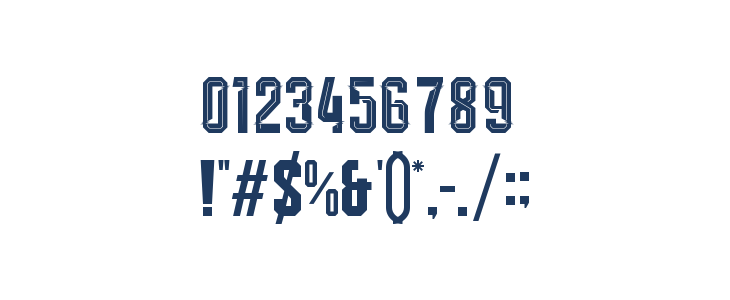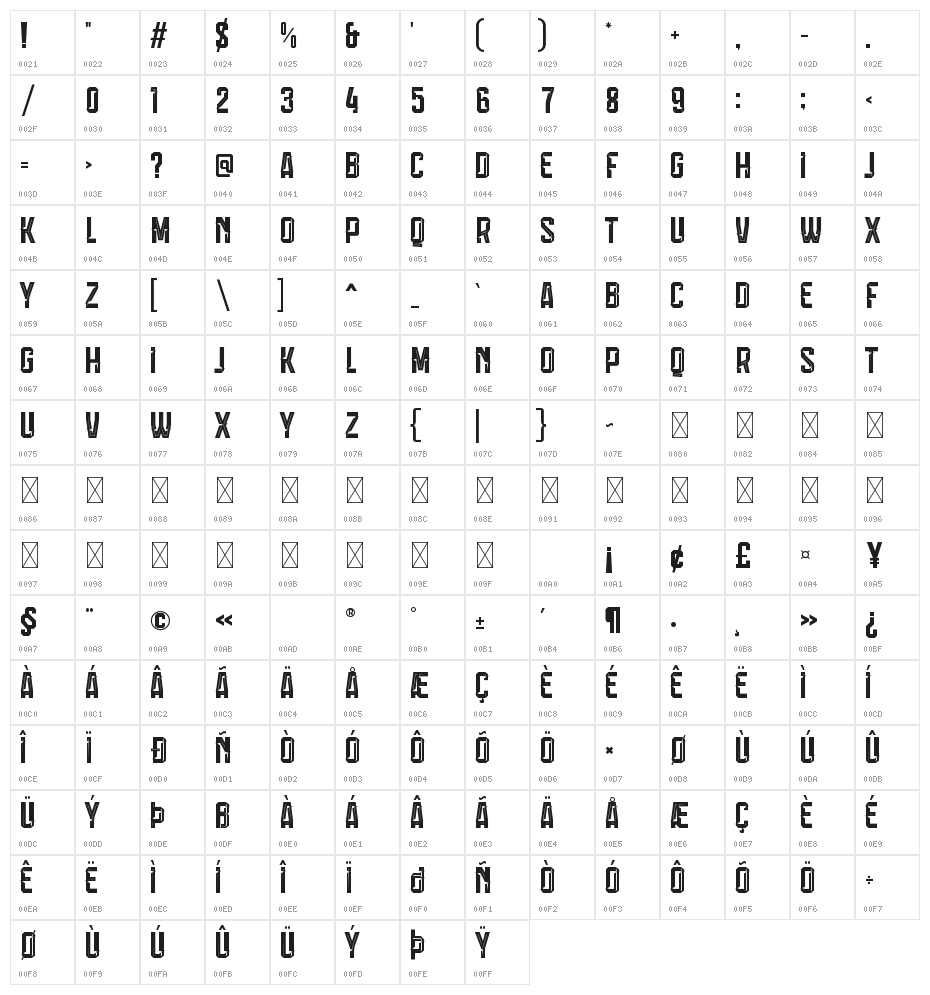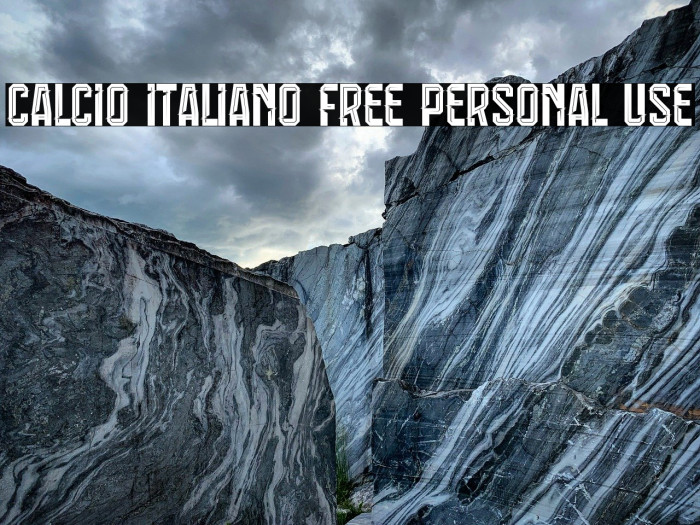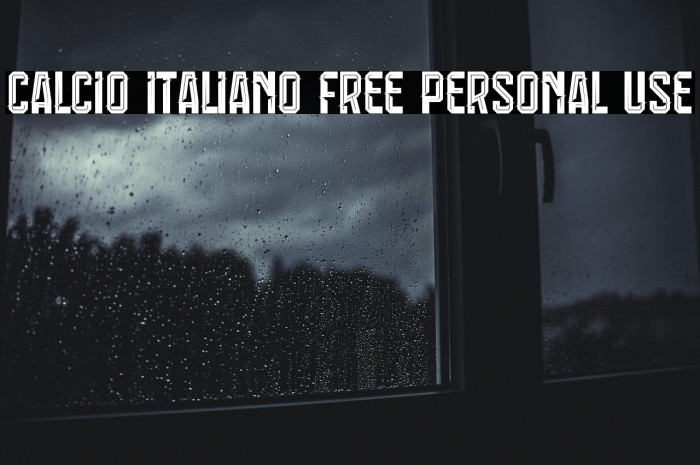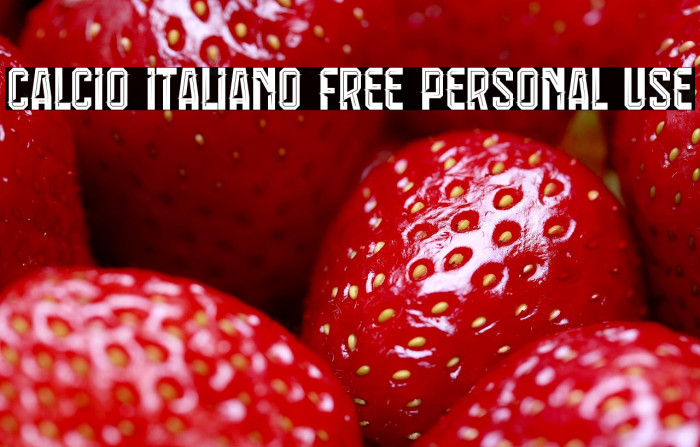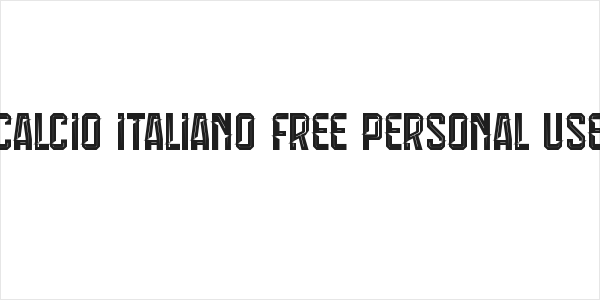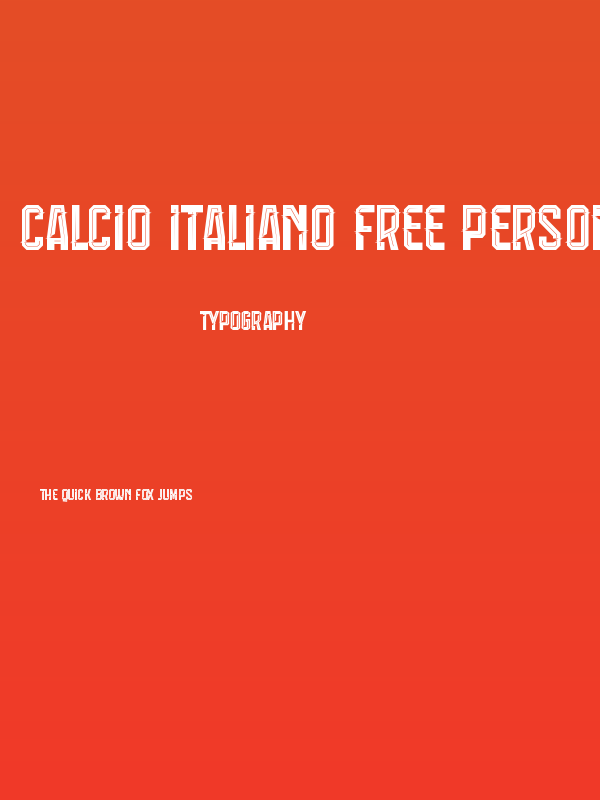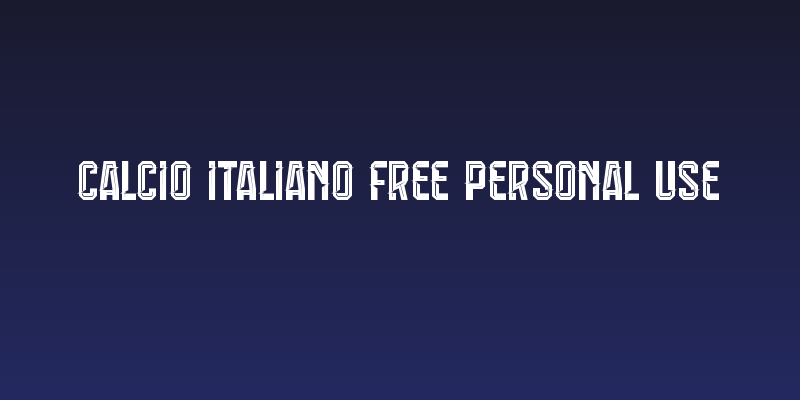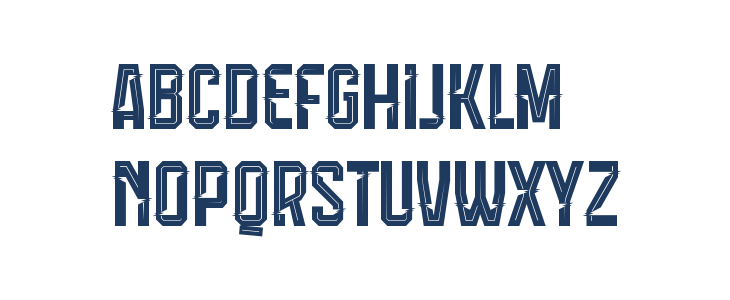
This font features a bold and dynamic design with a strong geometric structure. The characters are outlined with a shadow effect, giving them a three-dimensional appearance. The angular cuts and sharp edges add a sense of movement and energy, making it visually striking. The uppercase and lowercase letters maintain a consistent style, with the numbers and special characters following suit. The overall look is modern and edgy, suitable for attention-grabbing designs.
| Proposed Projects | Ideal for sports branding, posters, headlines, and any project requiring a bold and dynamic visual impact. |